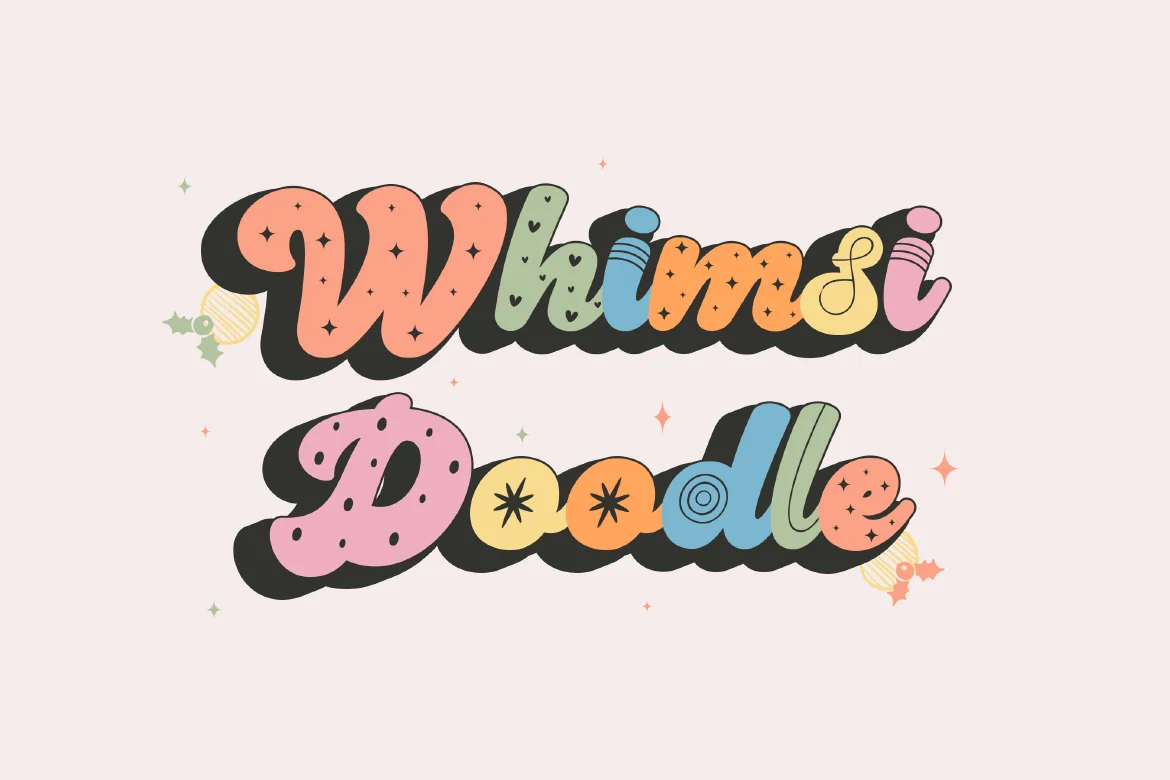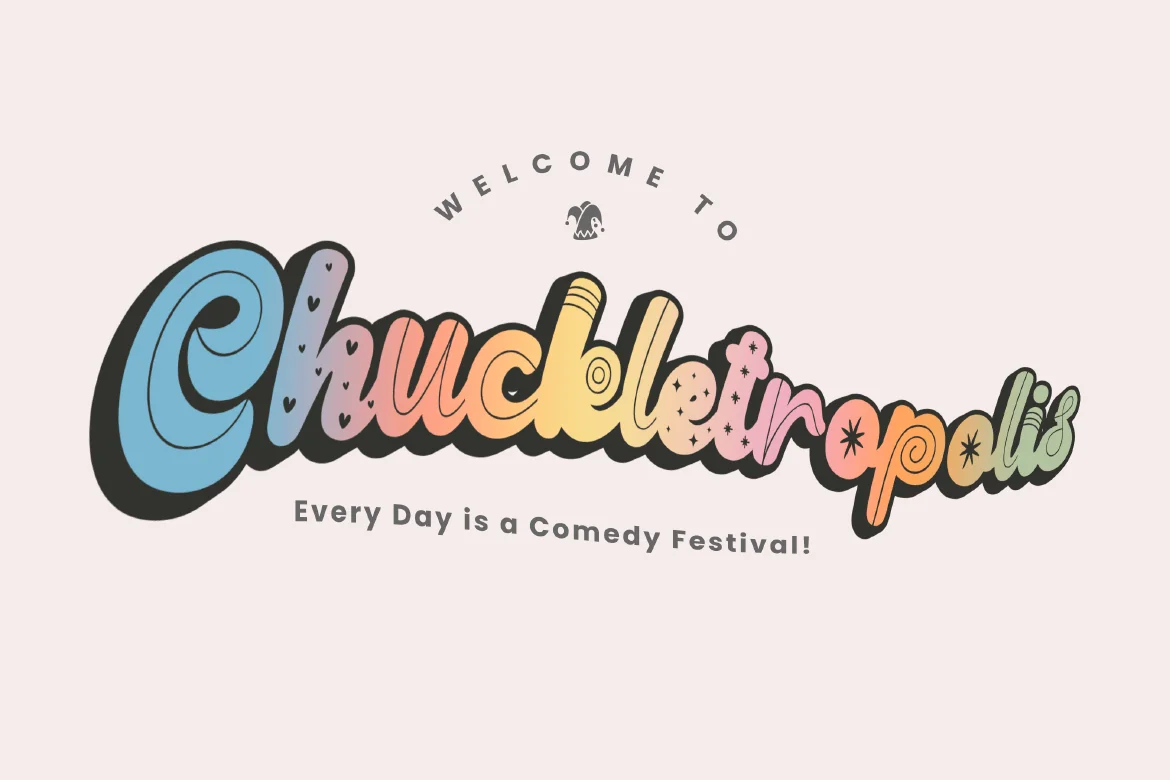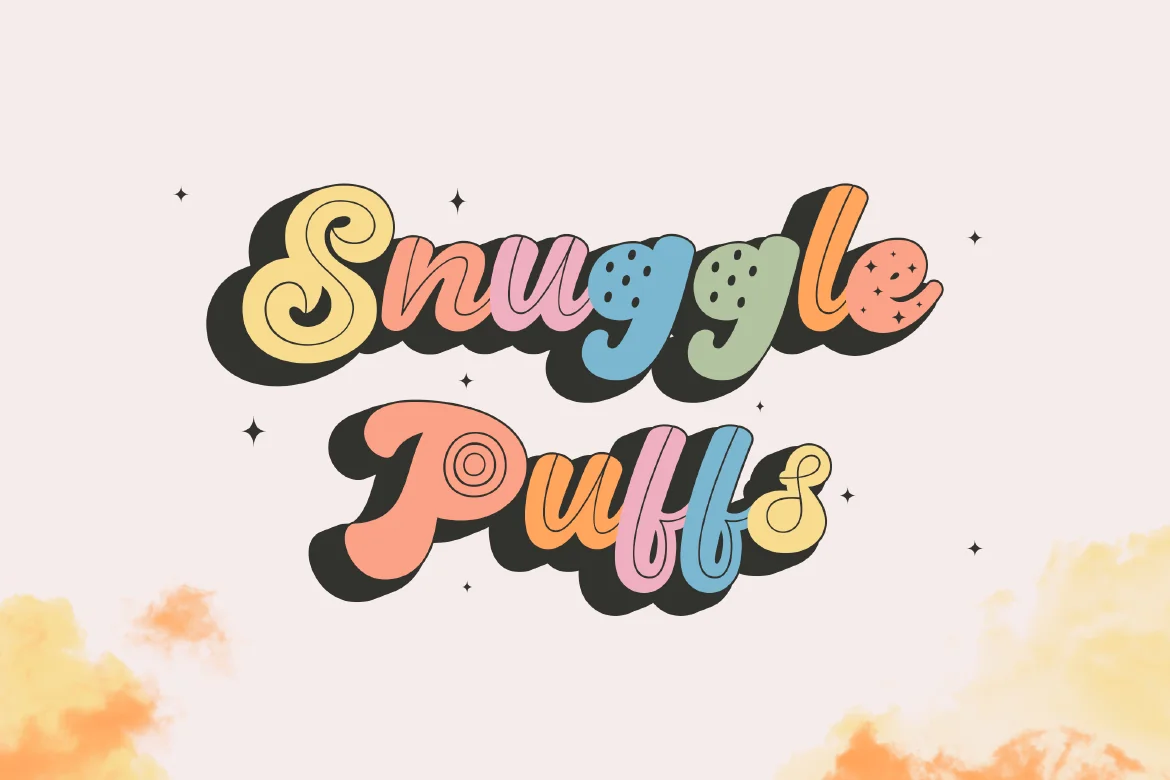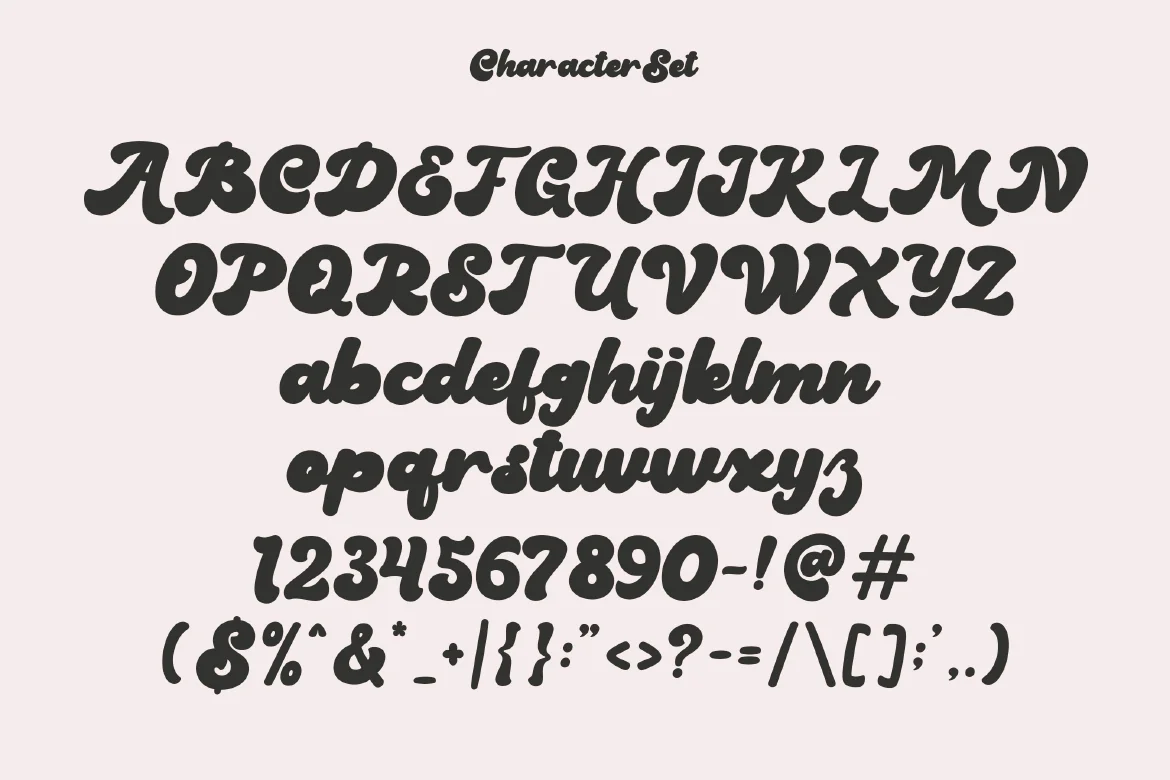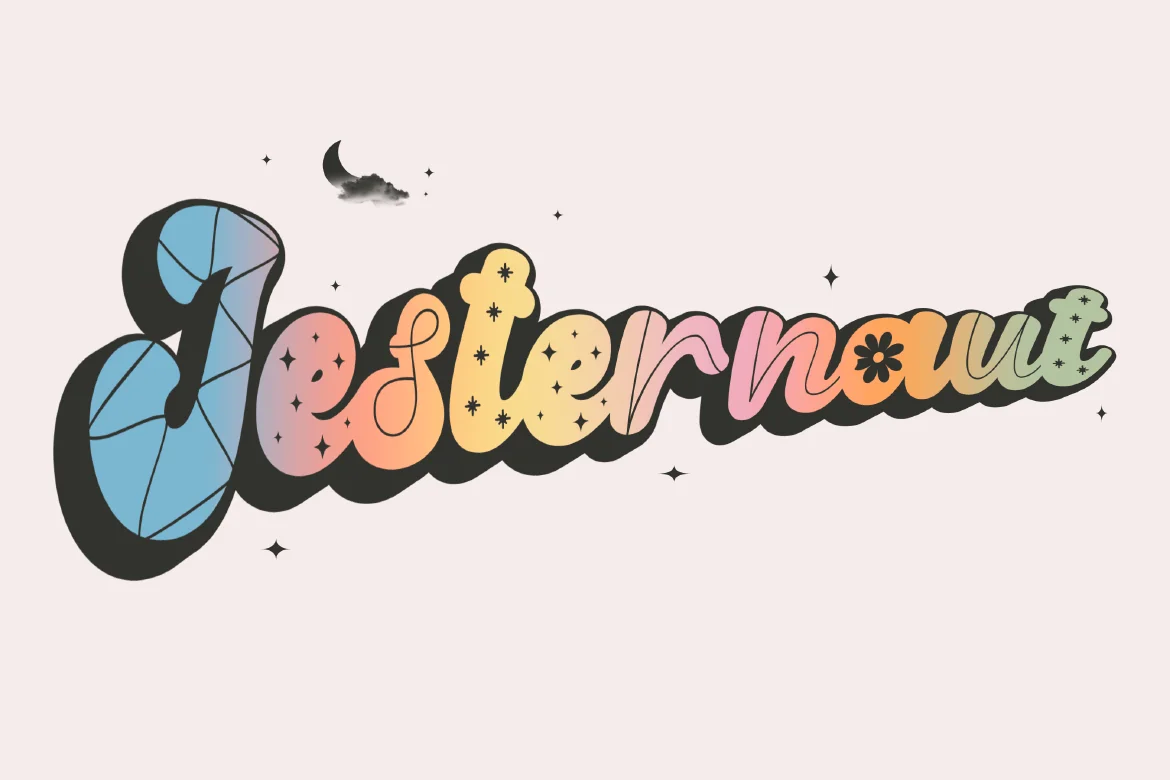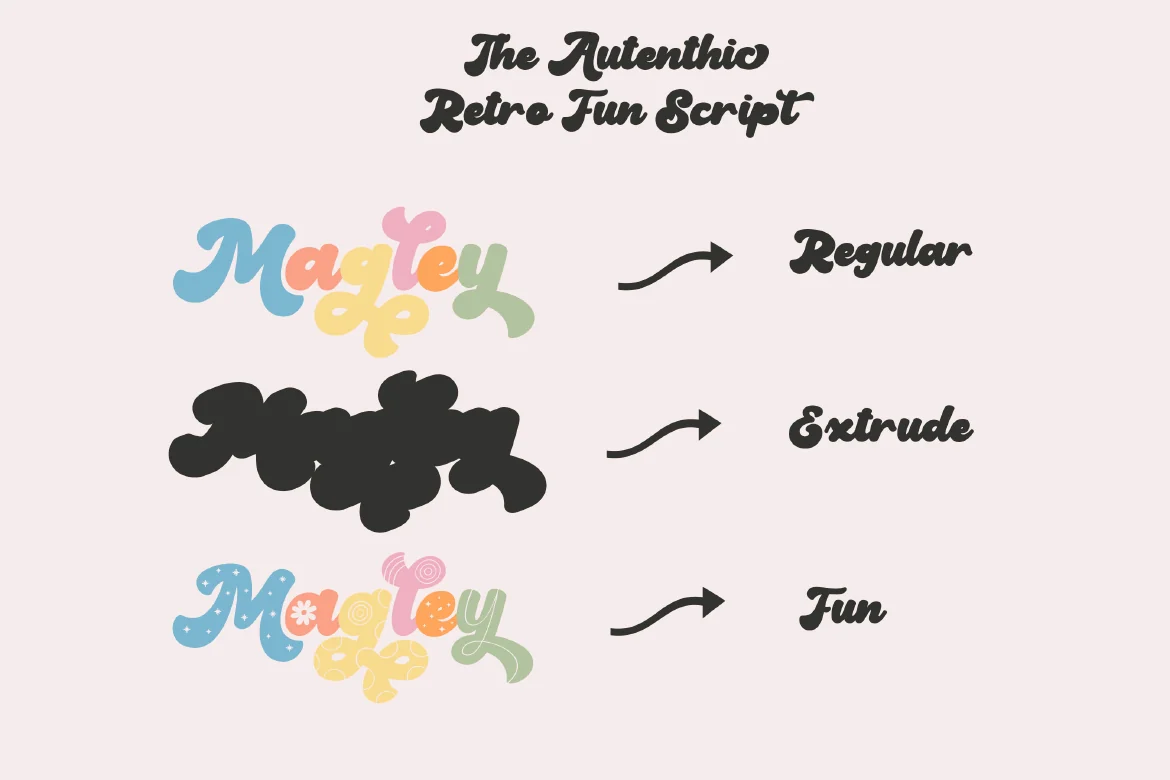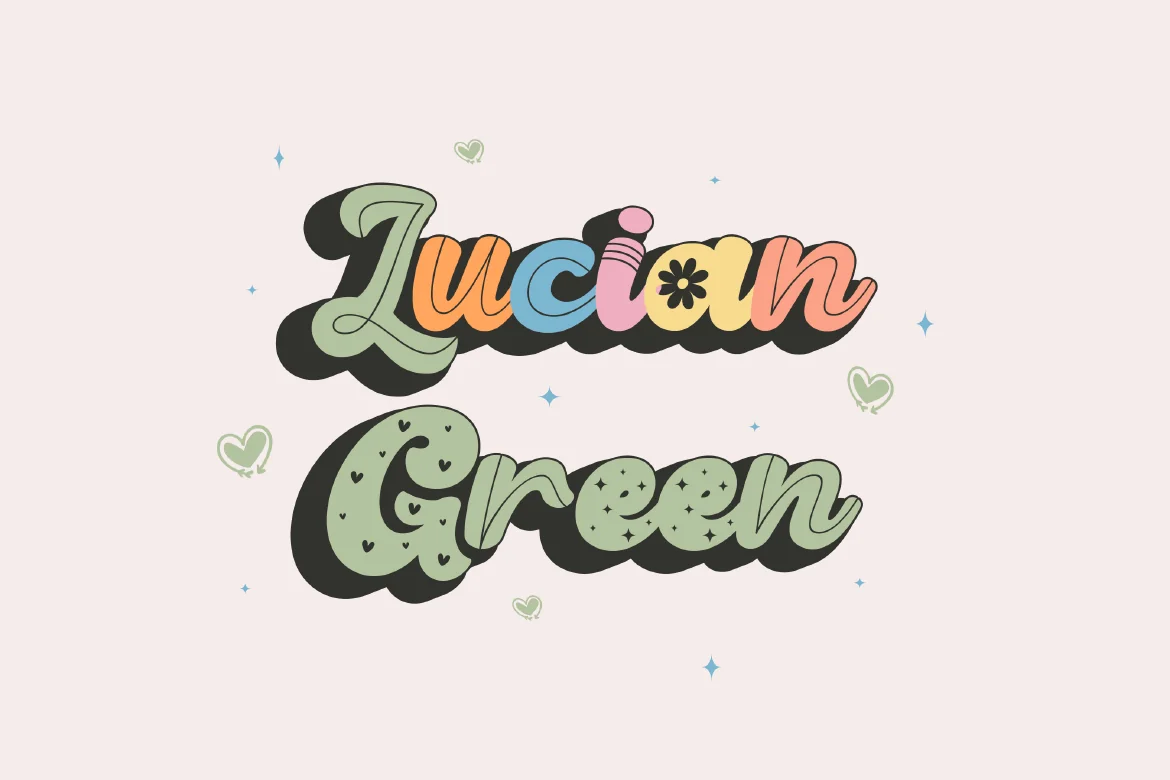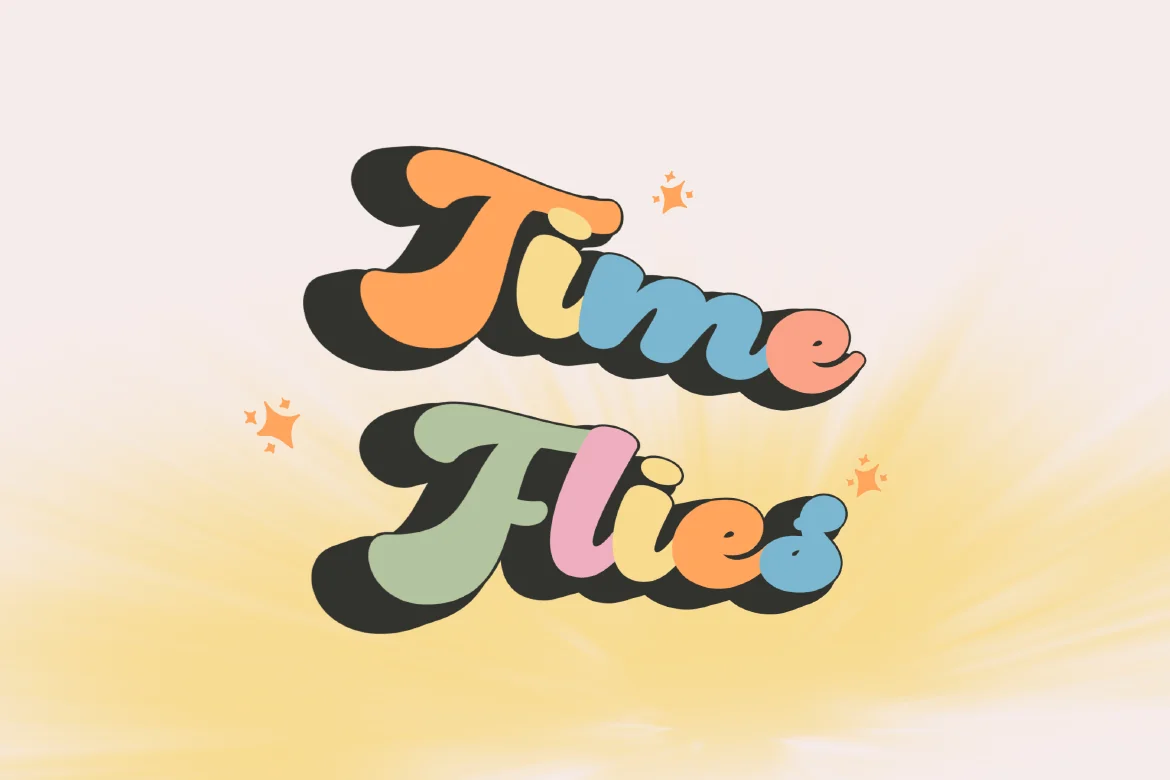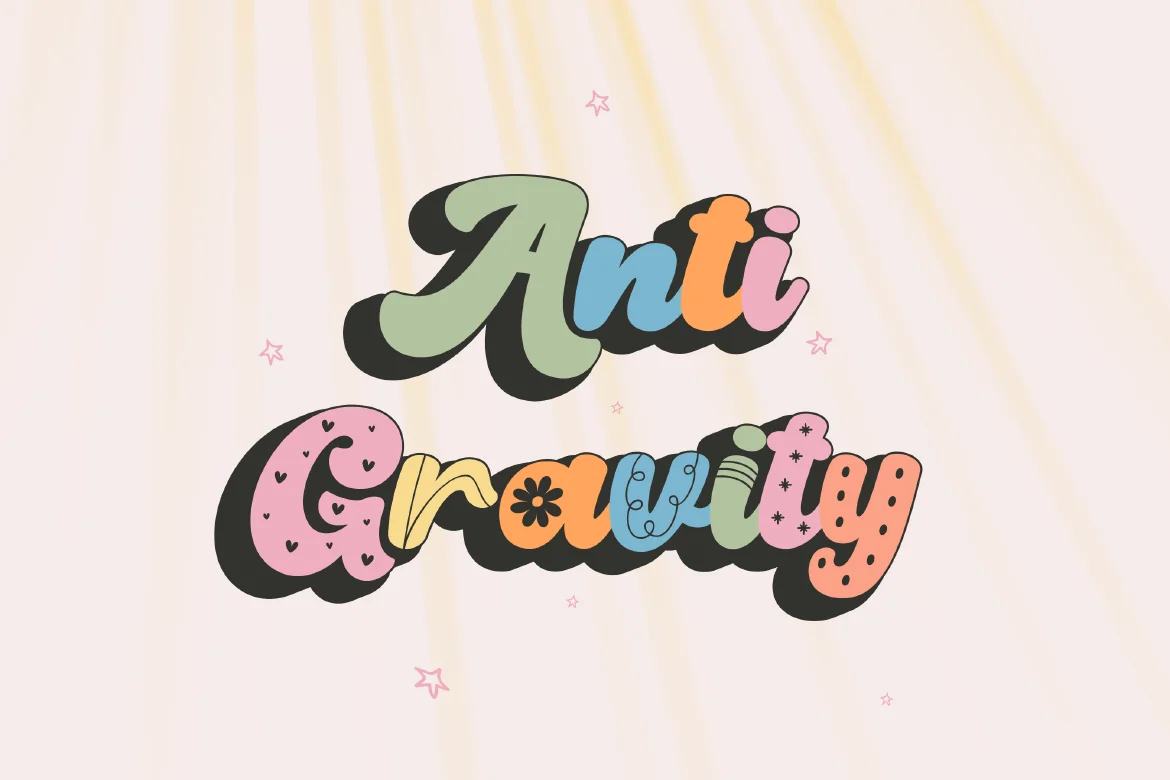
Magley – Retro Fun Script Font
Introducing “Magley” a font that effortlessly blends playful script elements with a retro charm, creating a nostalgic yet contemporary feel. This unique typeface doesn’t just stop at capturing attention — it transports your designs to a world where every letter tells a story. Magley doesn’t just bring letters to life; it introduces a dynamic trio of styles — regular, solid, and fun — adorned with patterns in fun styles that add an extra layer of delight to your designs.
Alternate Character